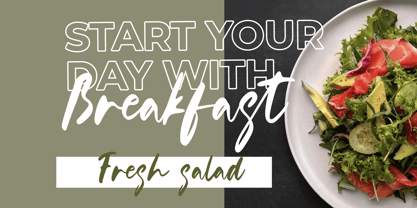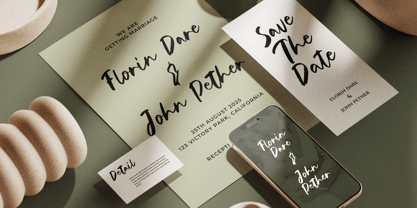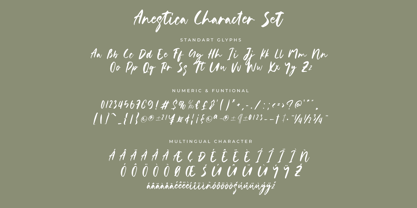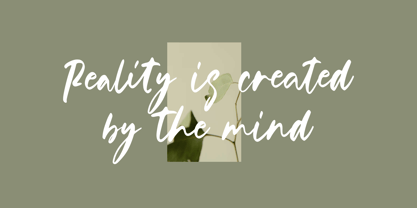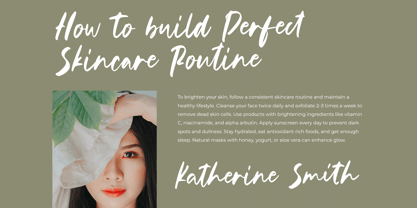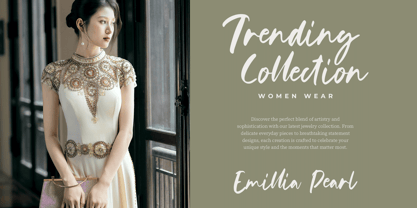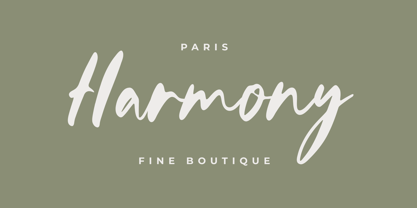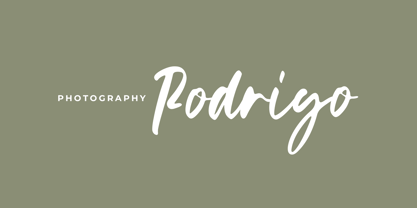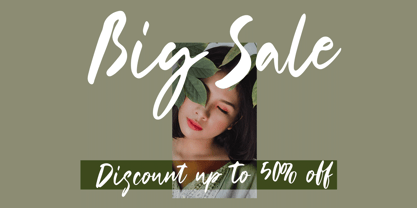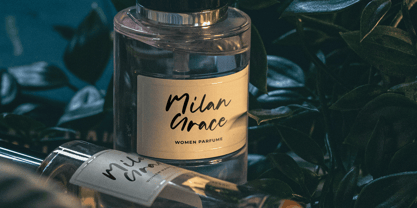
Anestica
The Anestica Font Family was designed by Yudi Pratama Chandra and published by RantauType. Anestica contains 1 styles. More about this family
Anestica is natural handwritten font embodies the warmth and authenticity of personal handwriting, Anestica come with smooth strokes, organic curves, and subtle imperfections, it evokes a sense of sincerity and creativity.
Anestica is a perfectly choice for any creative endeavor, creating, modern, chic, lifestyle design such as logotype, title, cover, branding, invitations, wedding designs, display and magazine, social media posts, advertisements, printed quotes, product packaging, corporate brand, product designs, labels, photography, watermarks, special events and any other project with modern touch.
• Standart Glyphs
• Numberial and Functional
• Ligature and alternate
Fonts include multilingual support for: Afrikaans, Albanian, Basque, Bemba, Bena, Breton, Catalan, Chiga, Cornish, Danish, Dutch, English, Estonian, Filipino, Finnish, French, Galician, German, Icelandic, Indonesian, Irish, Italian, Kinyarwanda, Luxembourgish, North, Norwegian, Portuguese, Romansh, Rombo, Rundi, Scottish, Gaelic, Sena, Shambala, Shona, Soga, Somali, Spanish, Swahili, Swedish, Swiss, German.